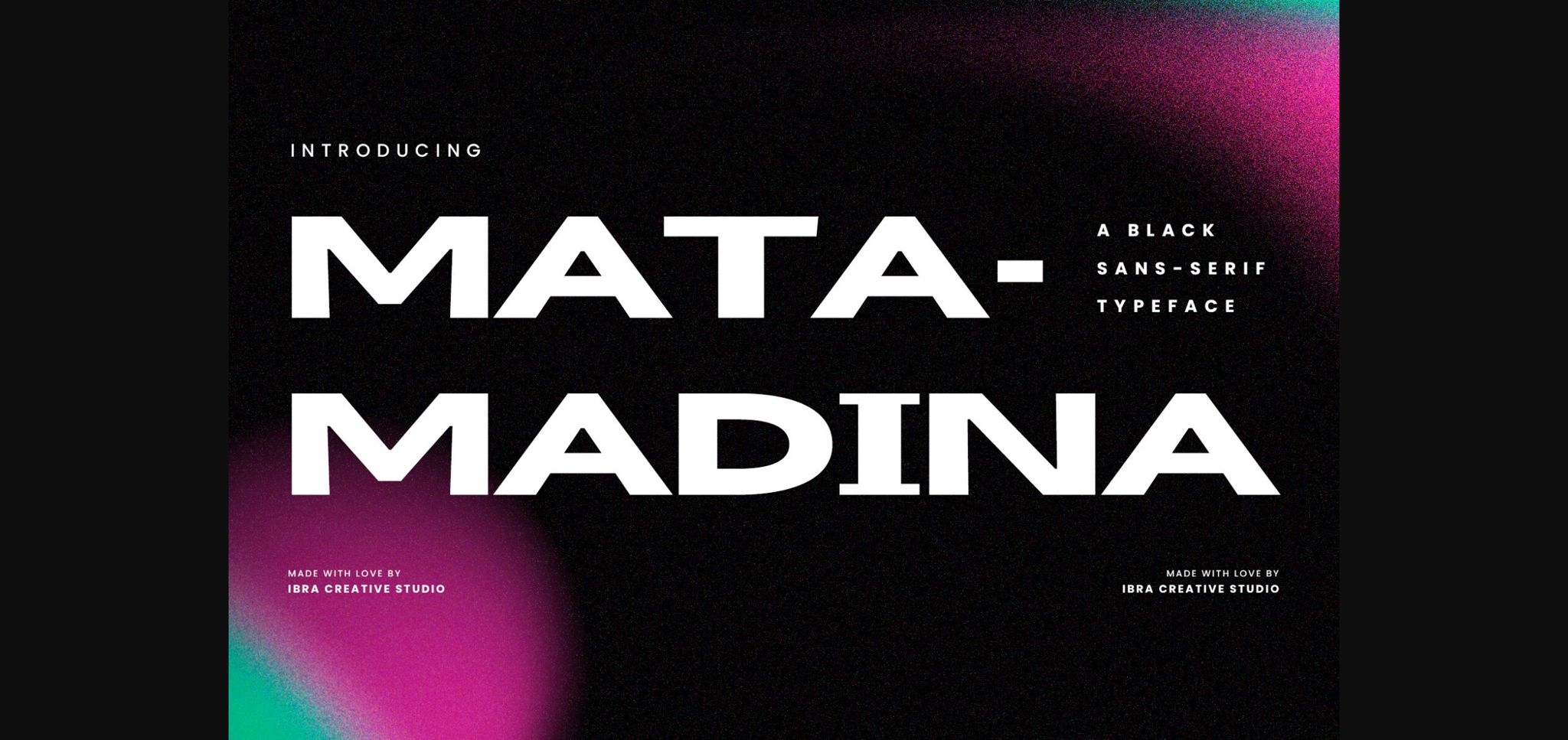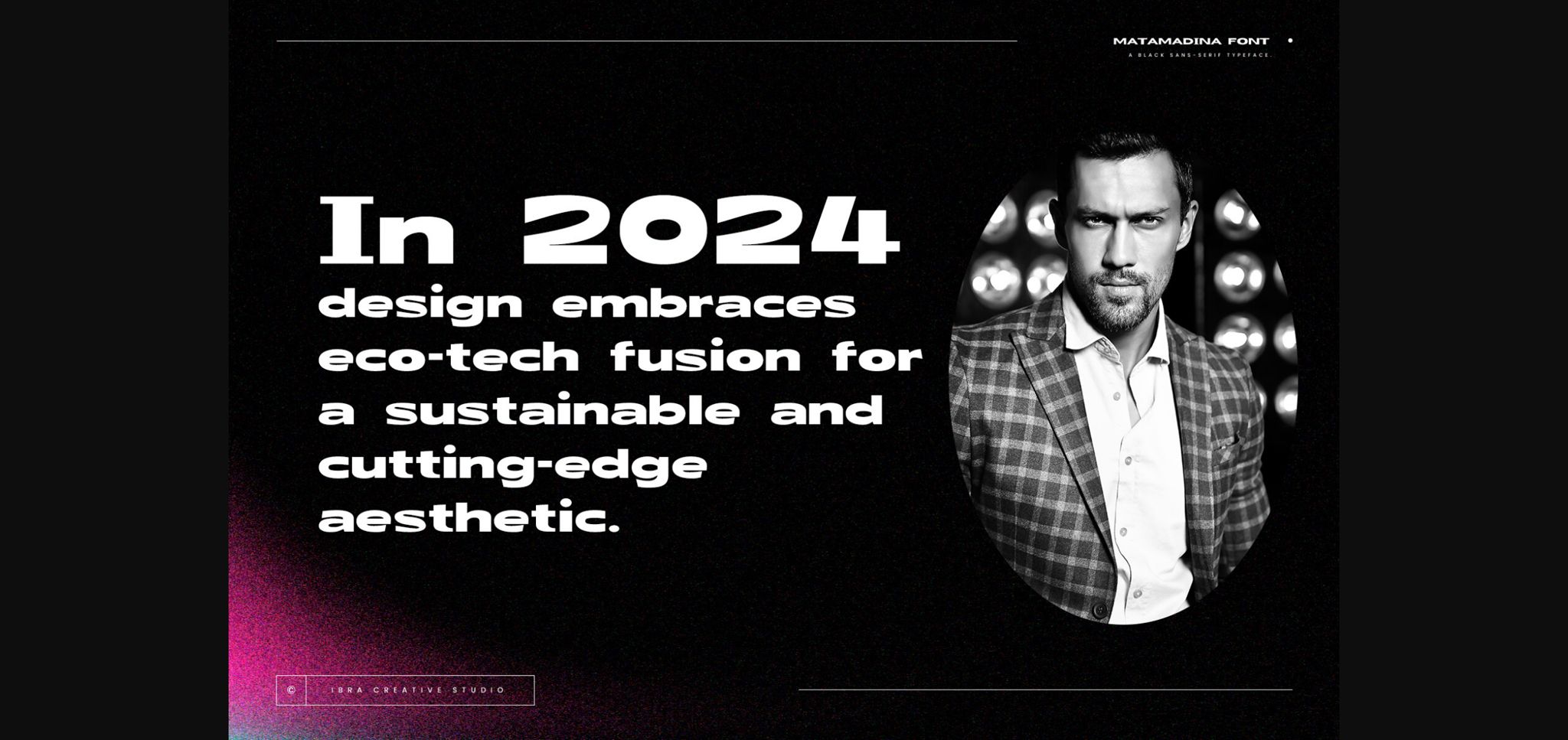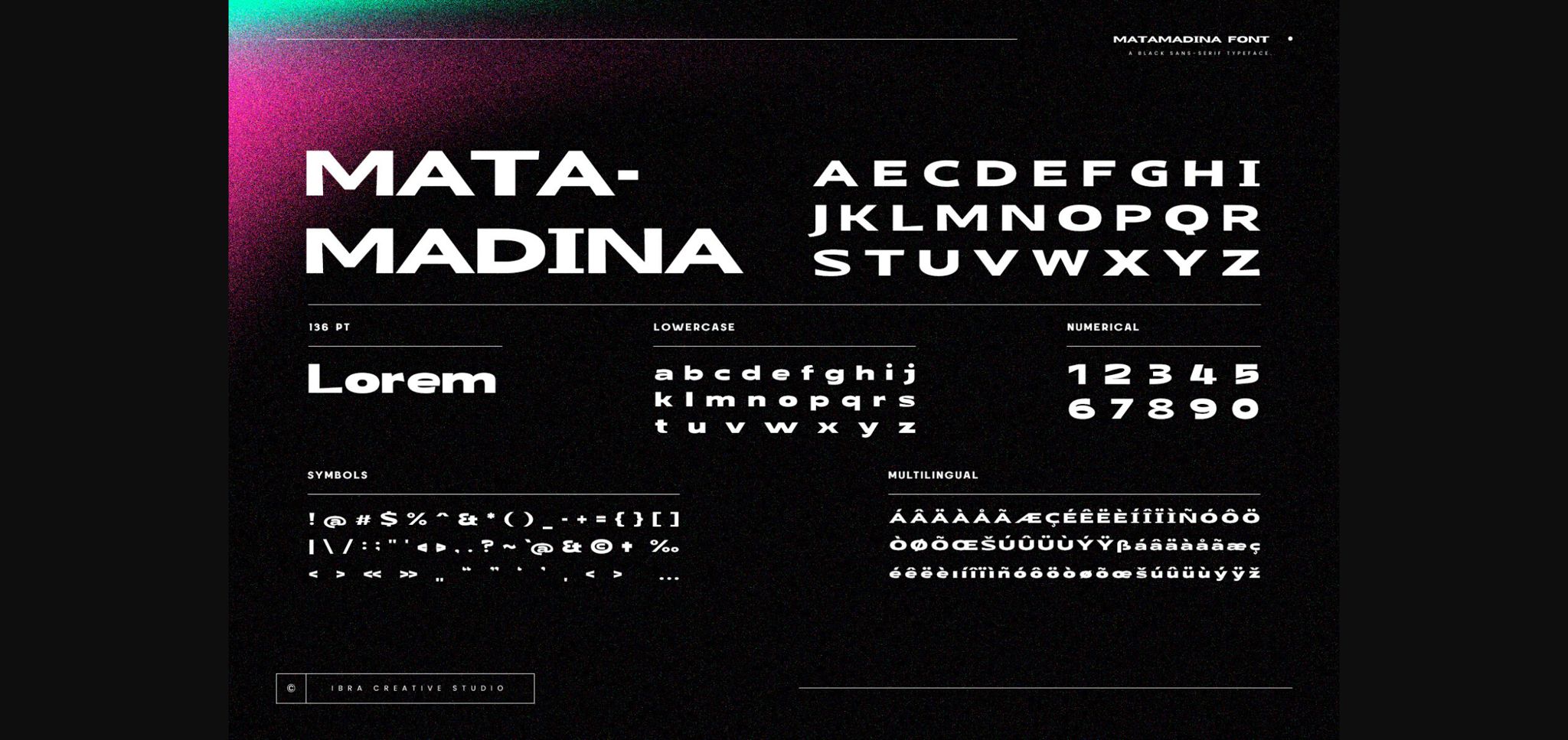
About Matamadina Font
Matamadina is a sleek and sophisticated black sans-serif typeface that effortlessly combines modern aesthetics with timeless simplicity. The characters exude a sense of boldness and clarity, with sharp edges and a uniform stroke width that enhance legibility. The deep black hue of Matamadina lends it a commanding presence, making it an ideal choice for conveying a sense of strength and professionalism in various design applications.